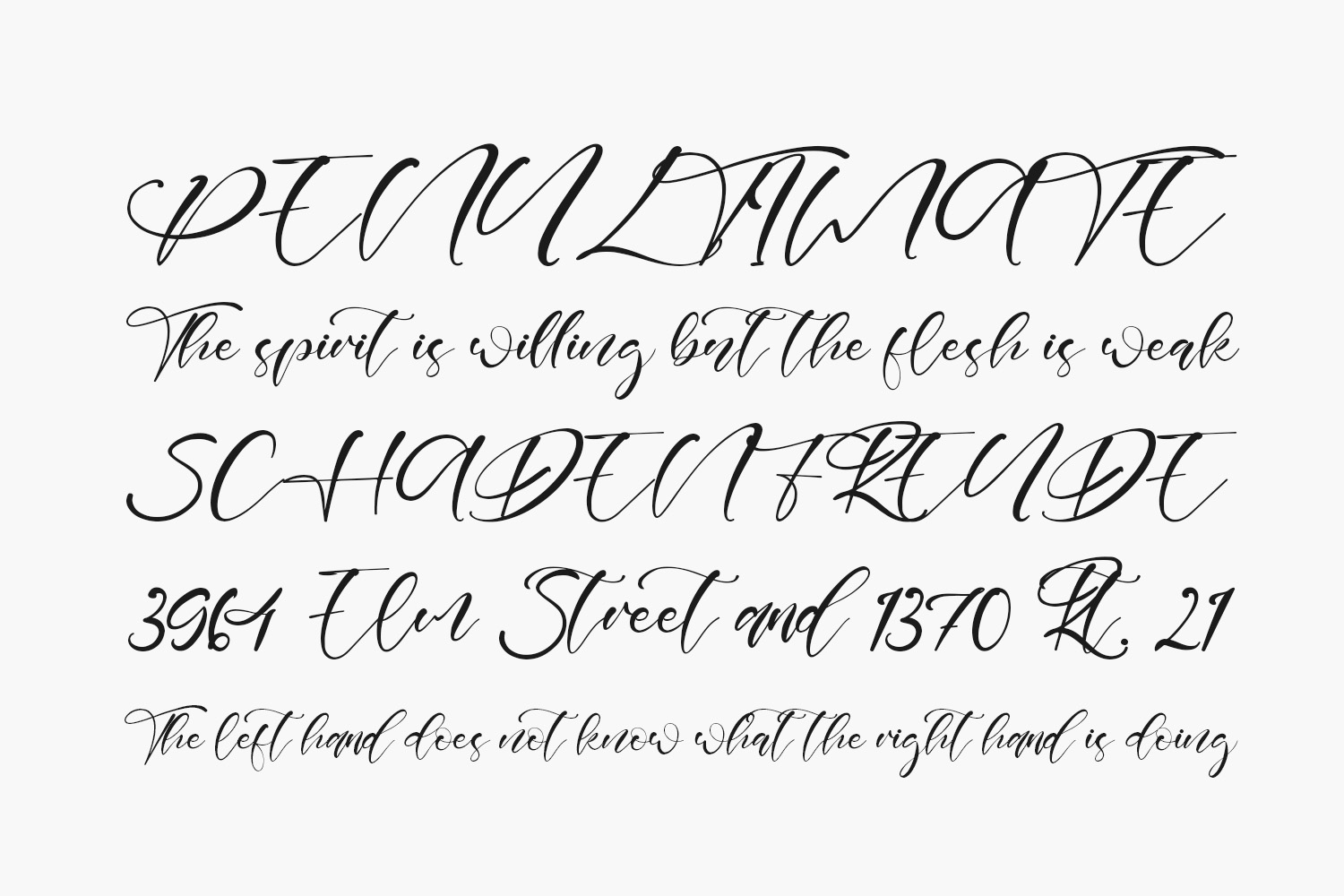
Hello Winter Free Font is a chic and flowing script font. Not too thin and not too thick, balanced and varied, this font was designed to enhance the beauty of your projects. Hello Winter Free Font was designed by Staircase Studio and is free for personal use only. Please purchase the full version for commercial use.